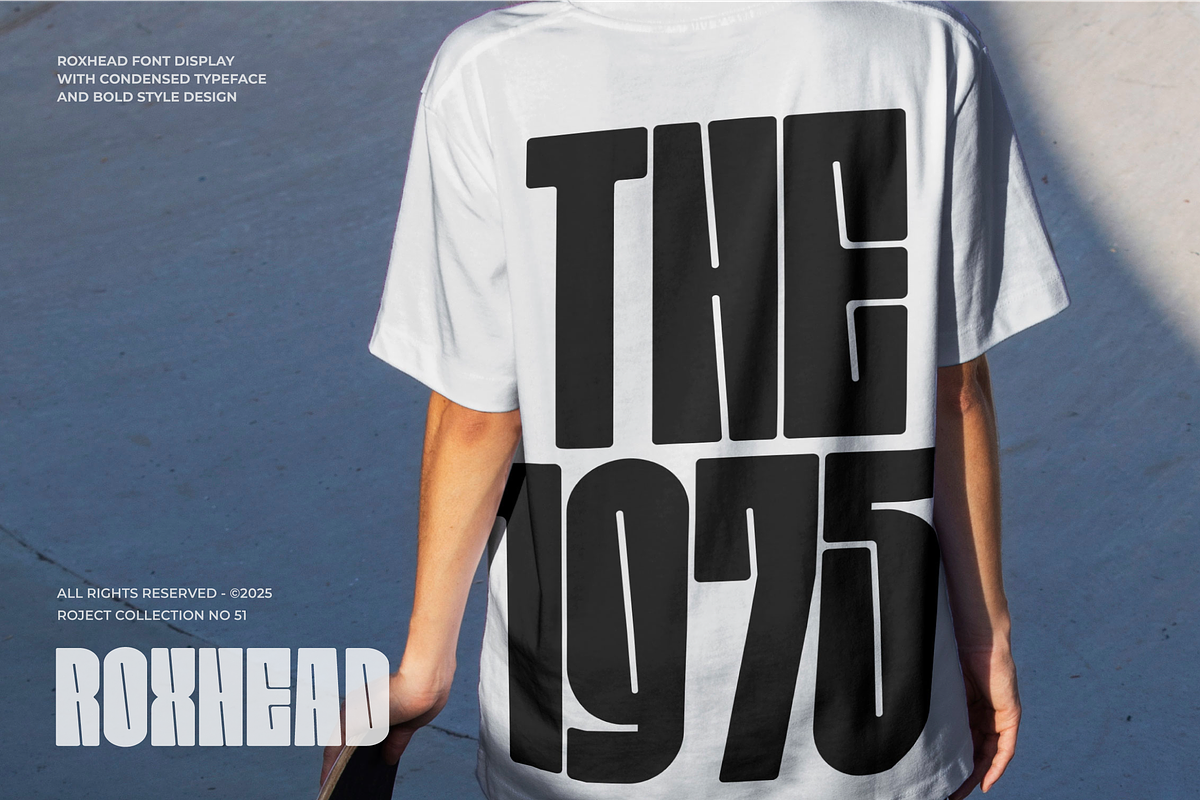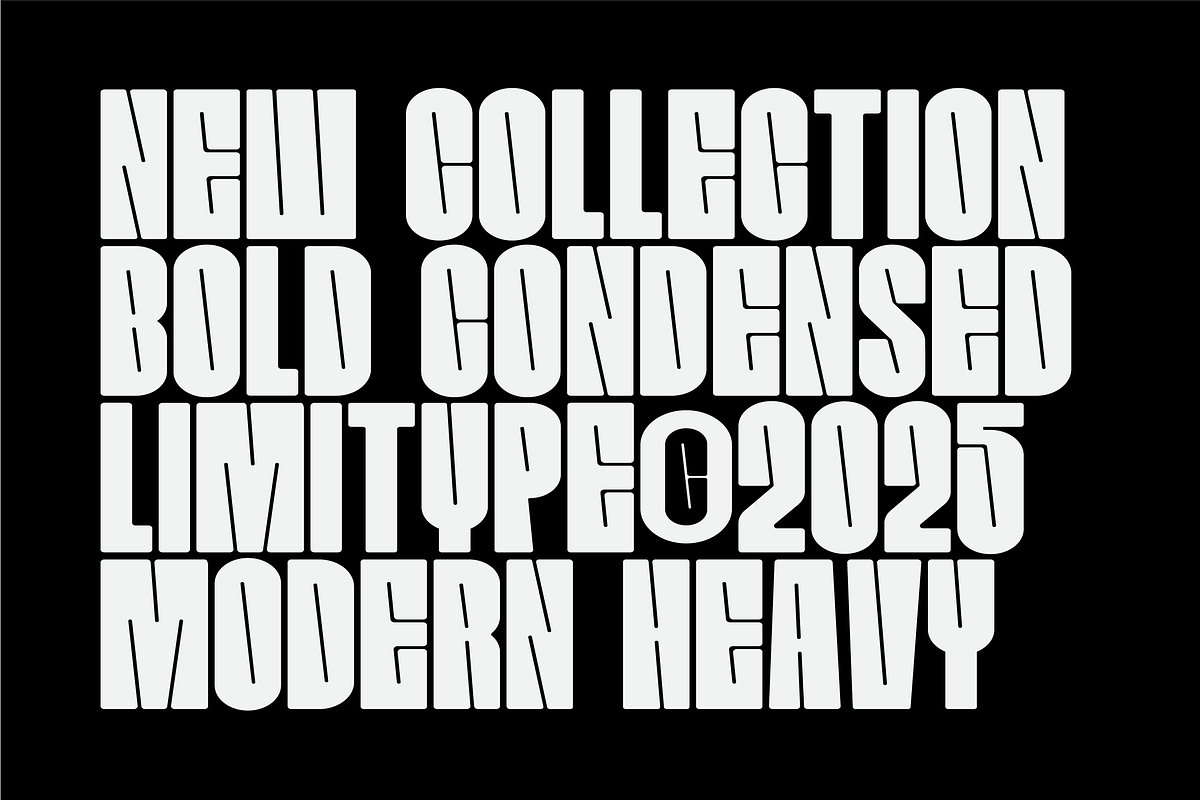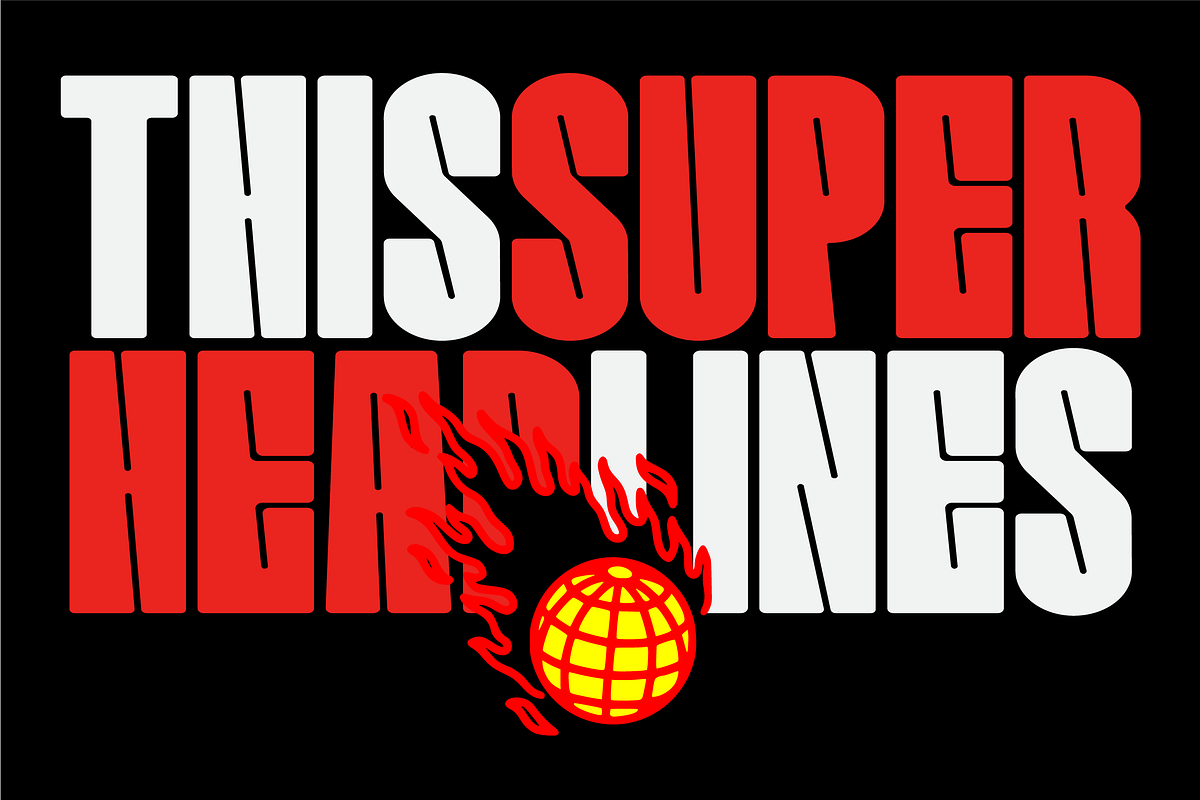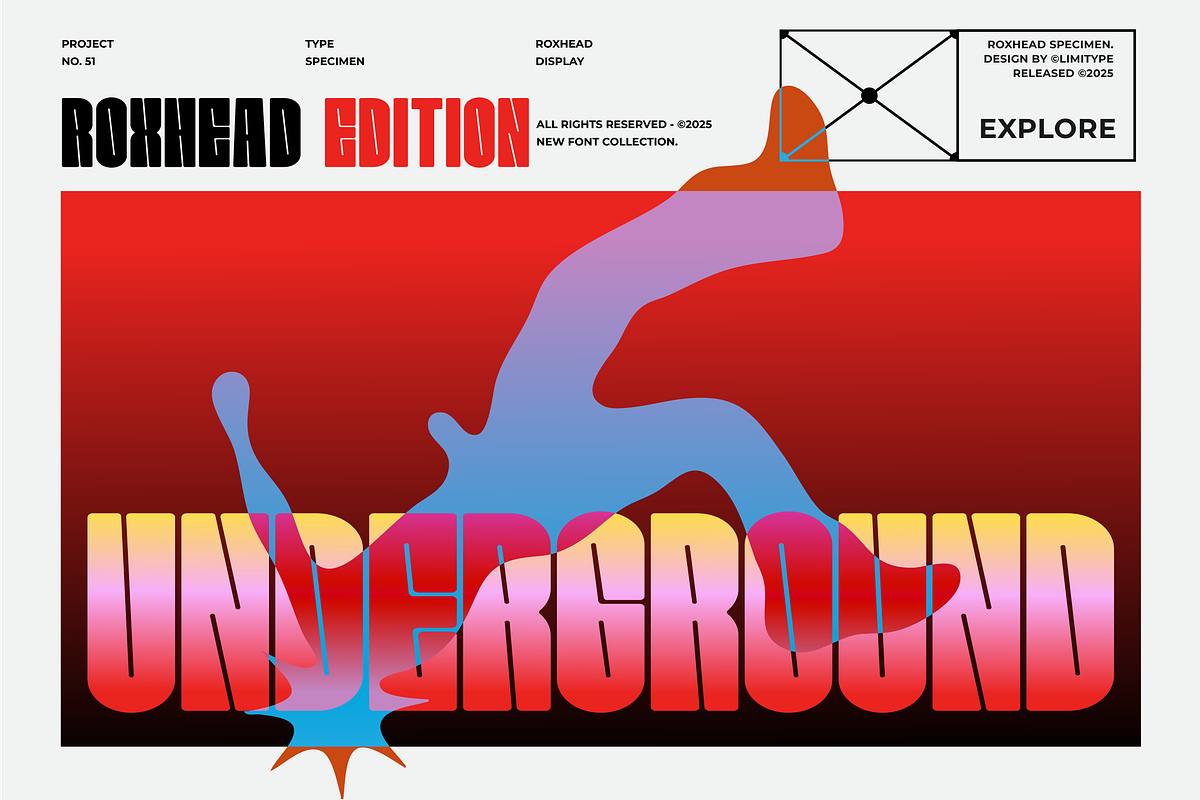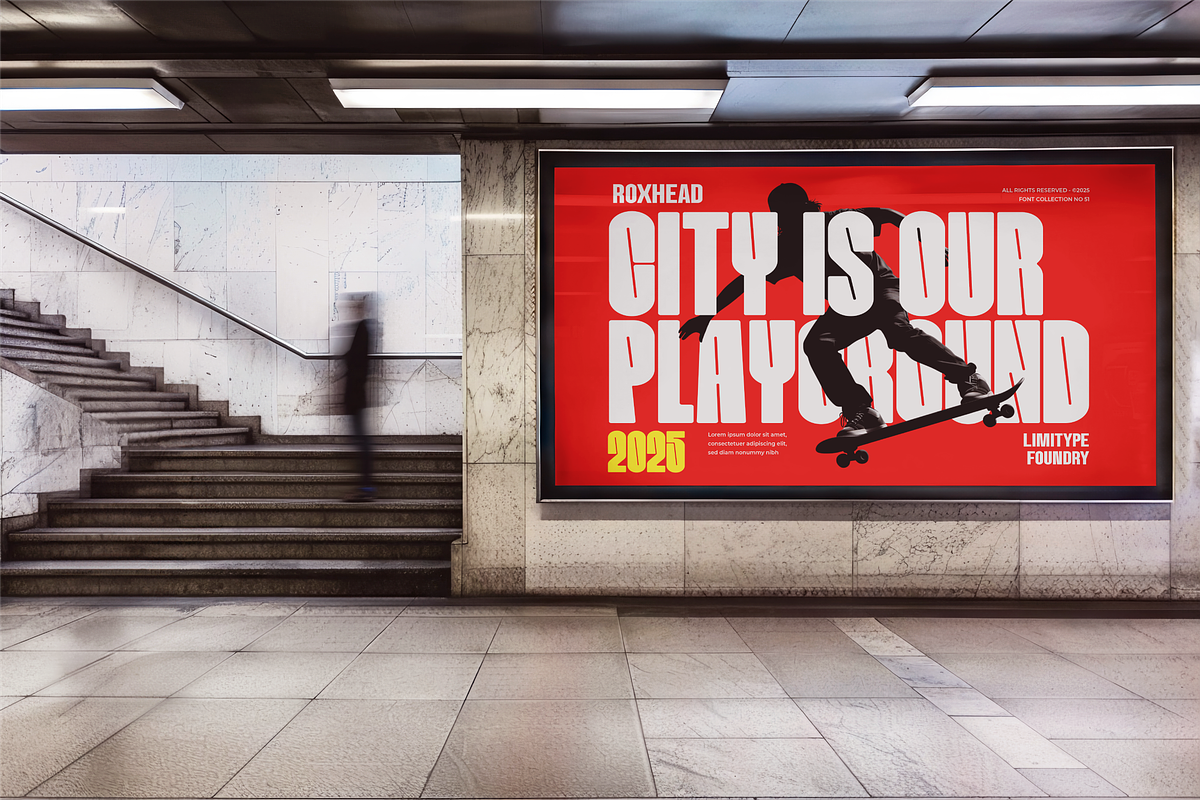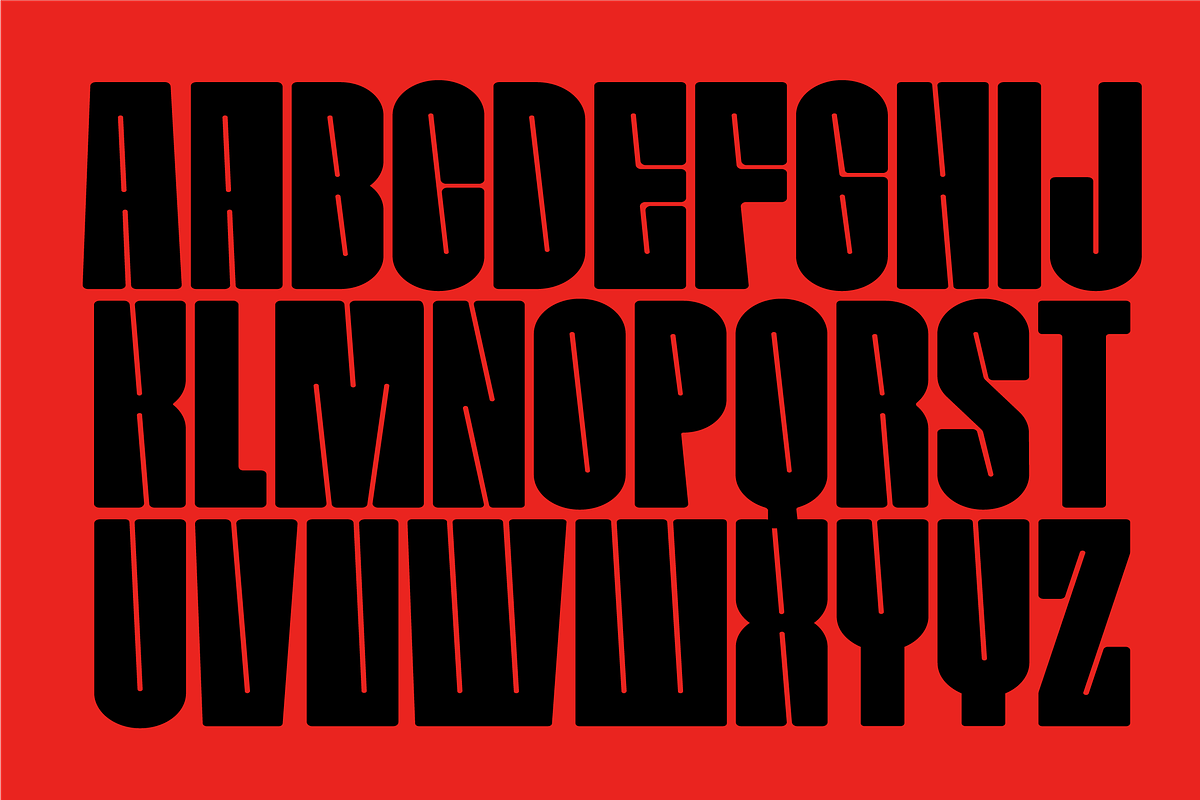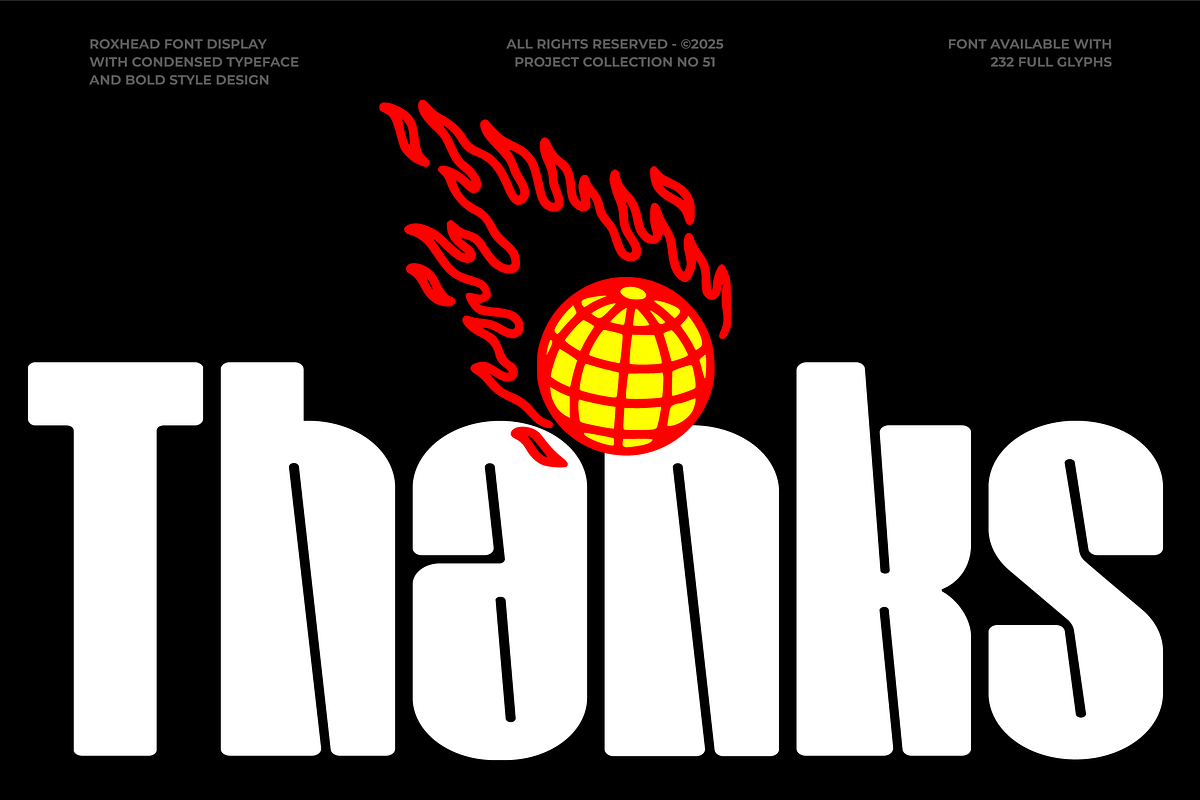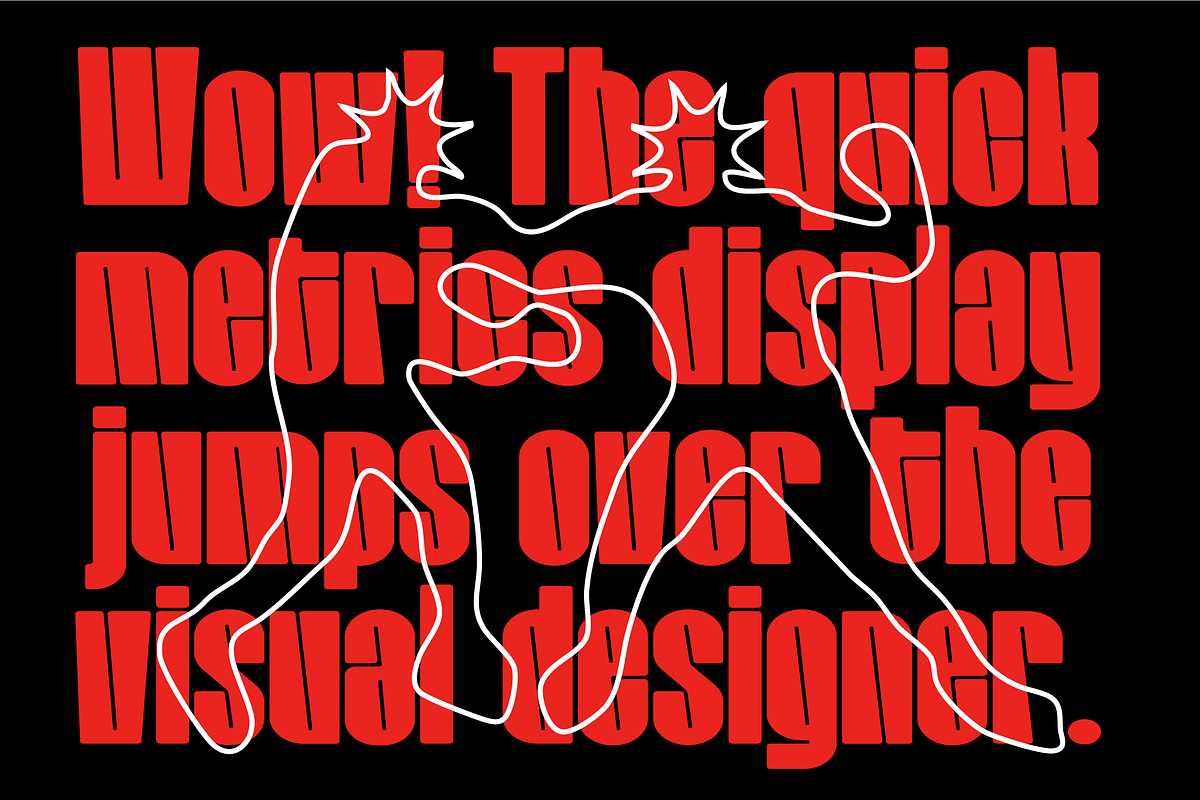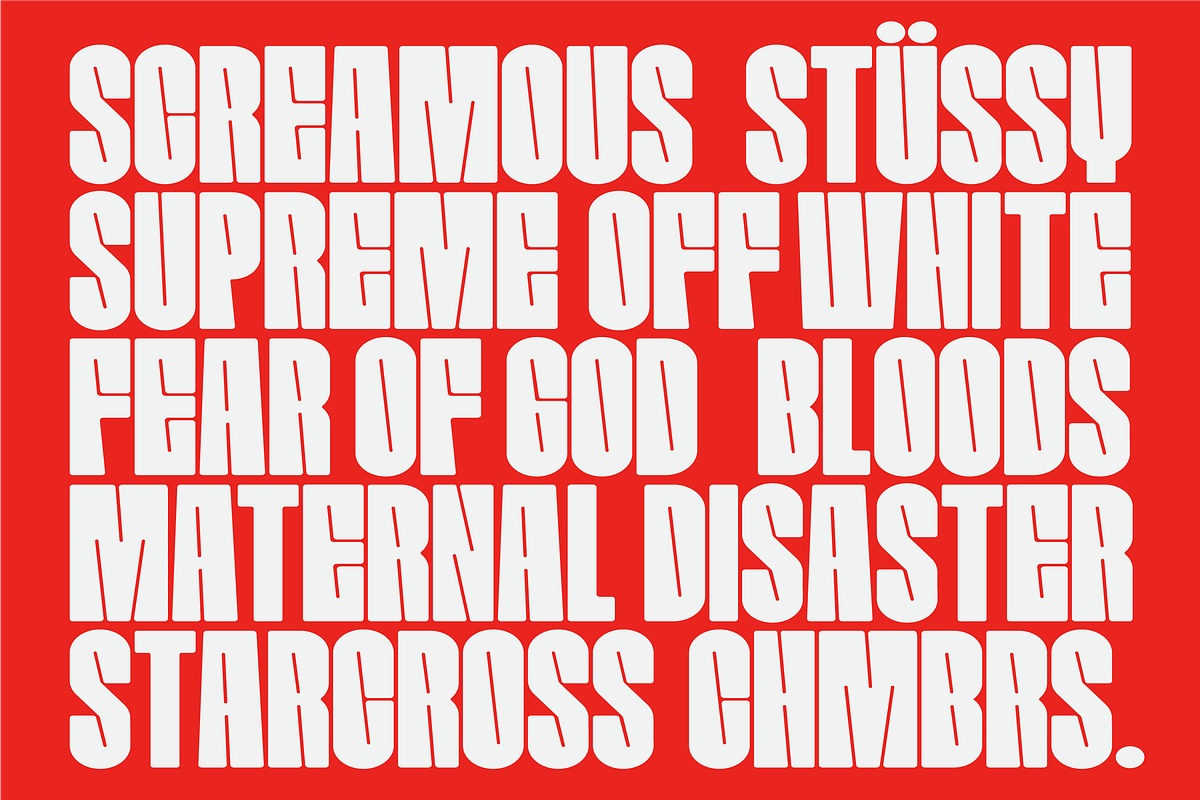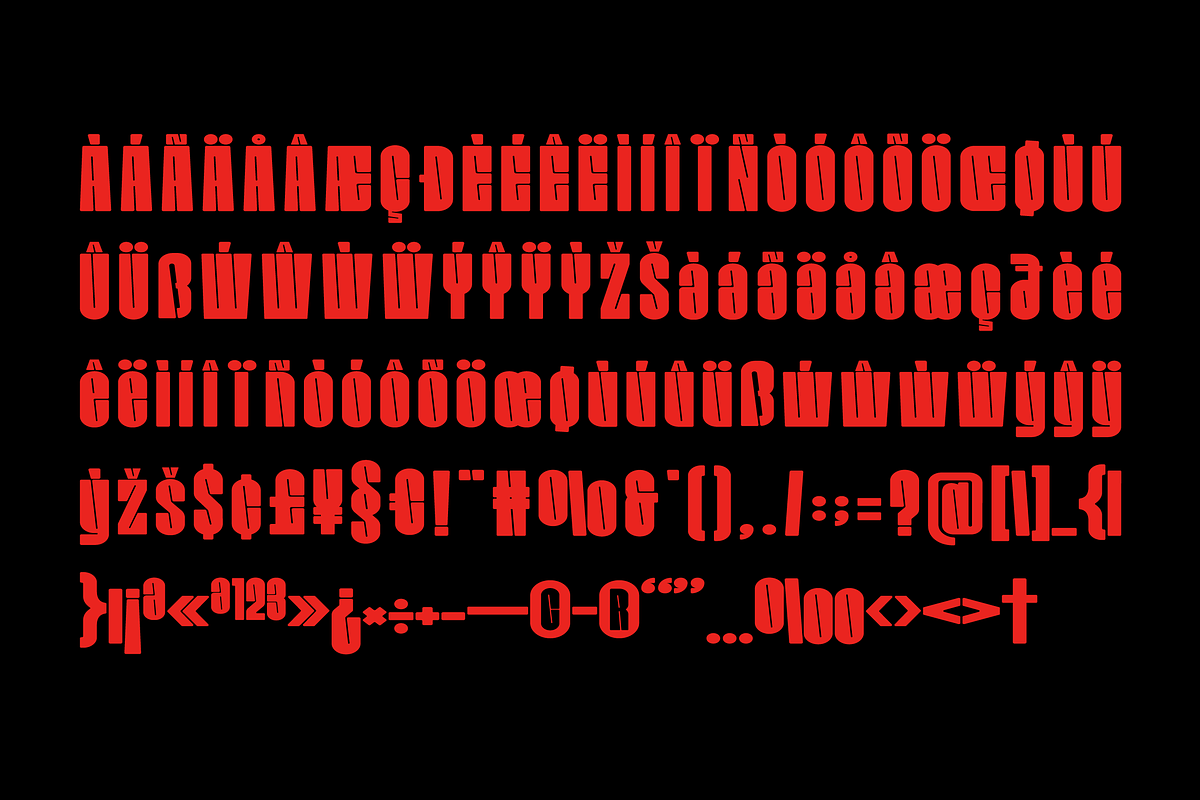
Roxhead - Condensed Font
Roxhead is a modern urban font with a condensed style and small counter details. Perfectly suited for headlines, posters, magazines, and merchandise that aim to appear modern and urban inspired.